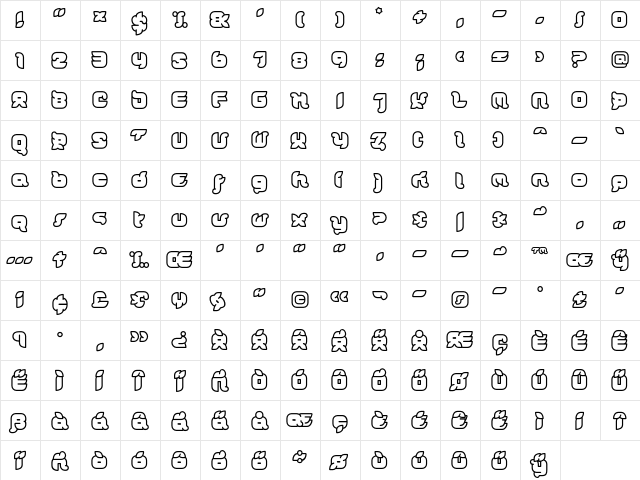
DorisOrange-Juicy Regular
Design Context for DorisOrange-Juicy Typeface
DorisOrange-Juicy is a composed and adaptable typeface that performs quietly and consistently across a wide range of design contexts.
Pro Tip: Use DorisOrange-Juicy in both headline and body roles to test its range before committing to a single application.